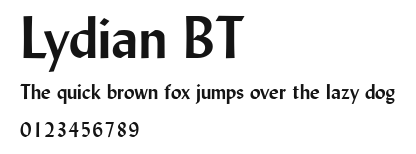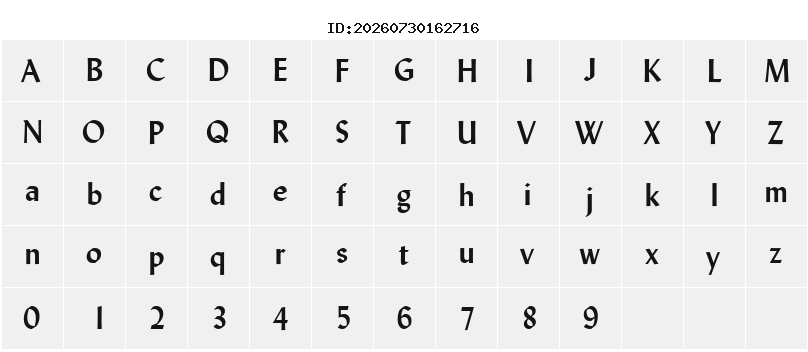
• Font Name: Lydian BT
• Font ID: Lydian Bold, Humanist 581
• Full Font Name: Lydian Bold BT
• PostScript Name: LydianBT-Bold
Lydian BT.ttf is a modern, elegant sans-serif font designed for ultimate readability and visual harmony. Perfect for branding, headlines, web design, and print materials.